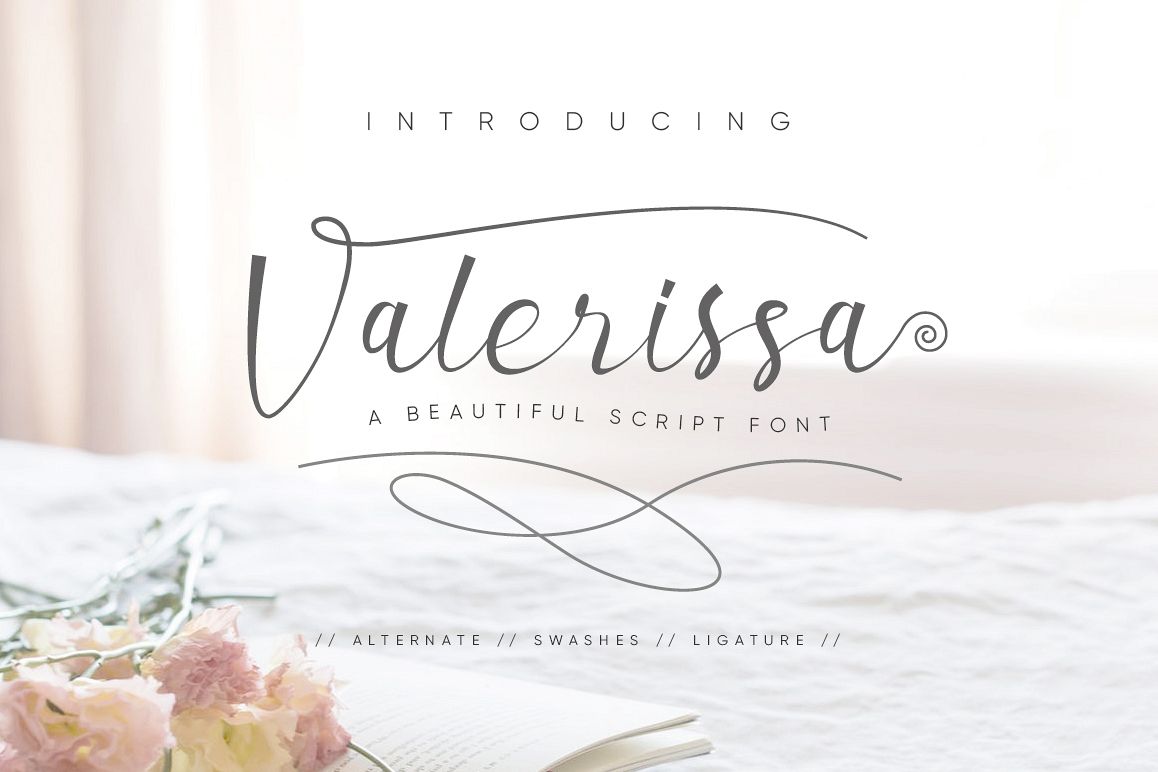
Valerissa Script
Valerissa-Regular
Valerisa Script is a beautiful calligraphy handwriting font. fonts look beautiful and sweet after being applied in your various design products such as websites, invitations, posters, mockups, branding cards and more.
Valerisa Script includes a full set of large and attractive international letters, numbers, punctuation and ligatures. All lowercase letters include the beginning and end of the swashes. Also, follow multilingual symbols.